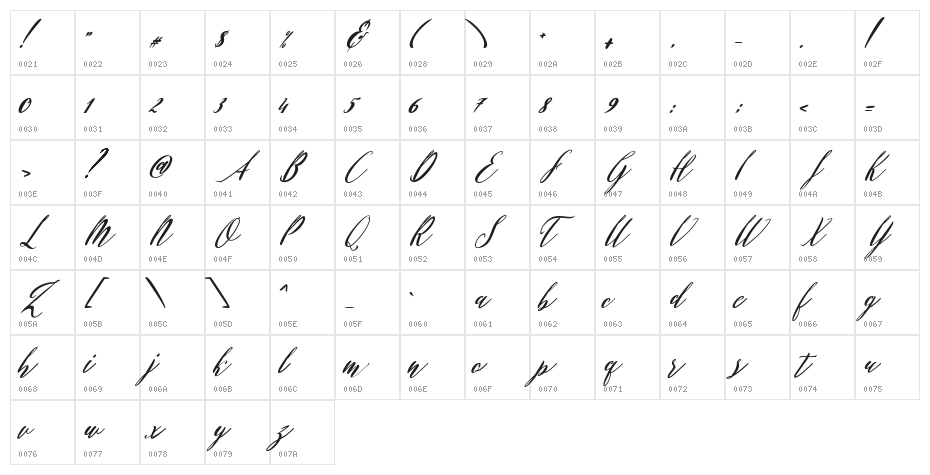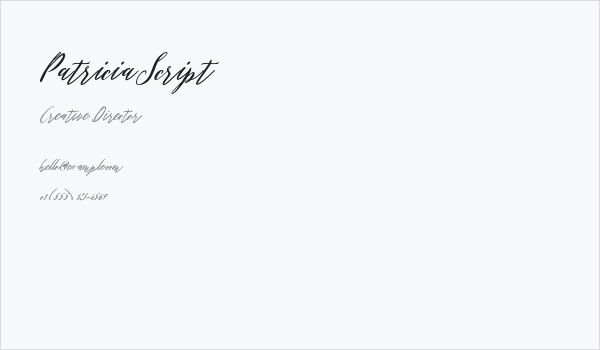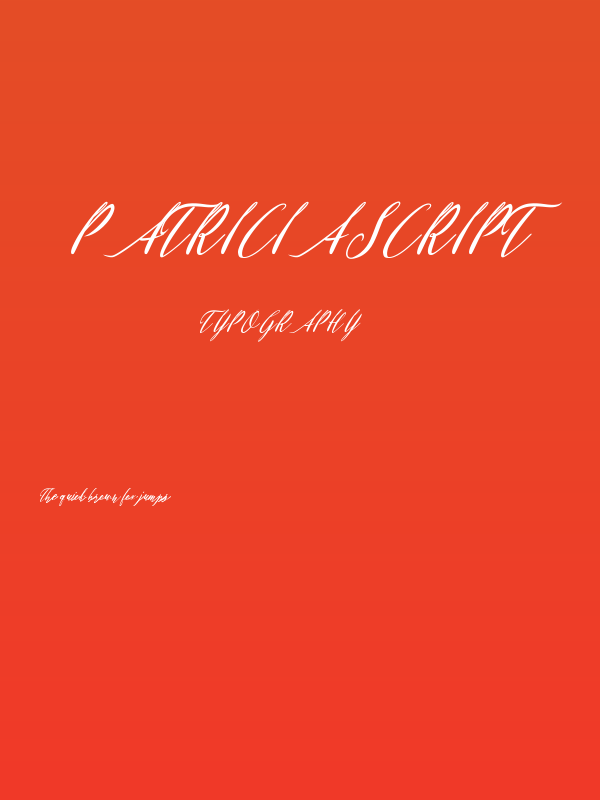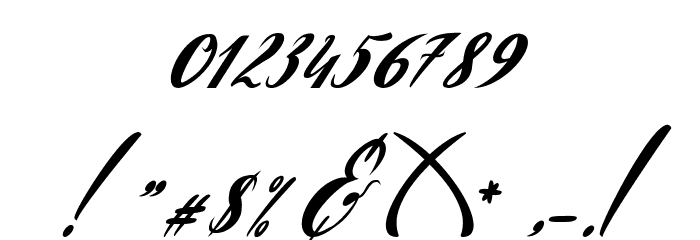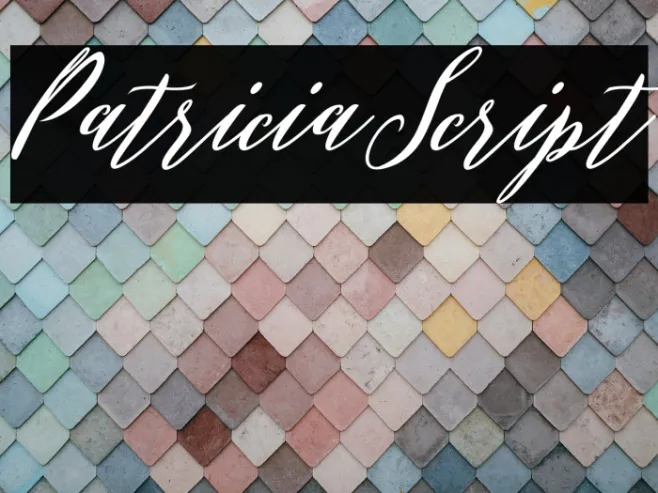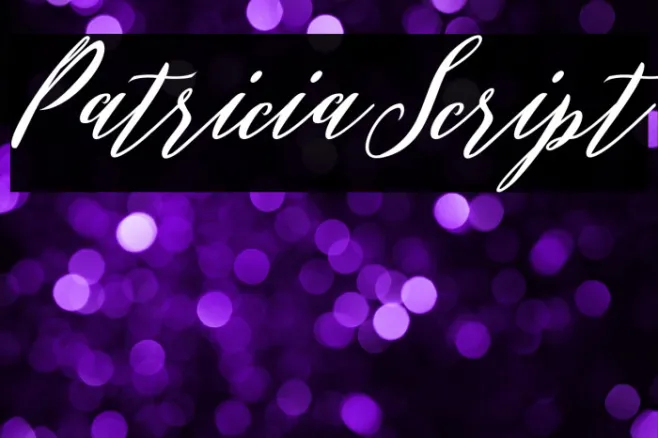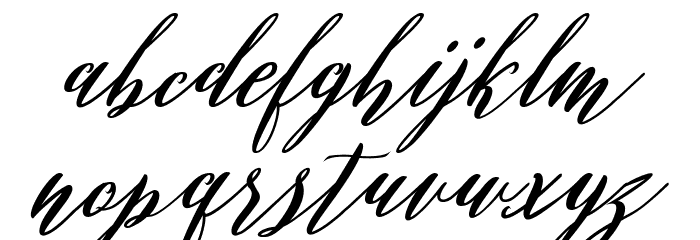
PatriciaScript Font
PatriciaScript Description
This elegant script font features a fluid and graceful style, characterized by its sweeping curves and delicate strokes. The uppercase letters are bold and expressive, with a slight slant that adds a sense of motion and sophistication. The lowercase letters maintain a consistent flow, connecting seamlessly to create a harmonious and cohesive look. The numerals and special characters are designed with the same attention to detail, ensuring versatility across various applications. This font's high contrast between thick and thin strokes enhances its readability while maintaining an artistic flair. Its overall appearance is both classic and modern, making it suitable for a wide range of design projects.
| Proposed Projects | Ideal for wedding invitations, elegant branding, greeting cards, and upscale packaging. |